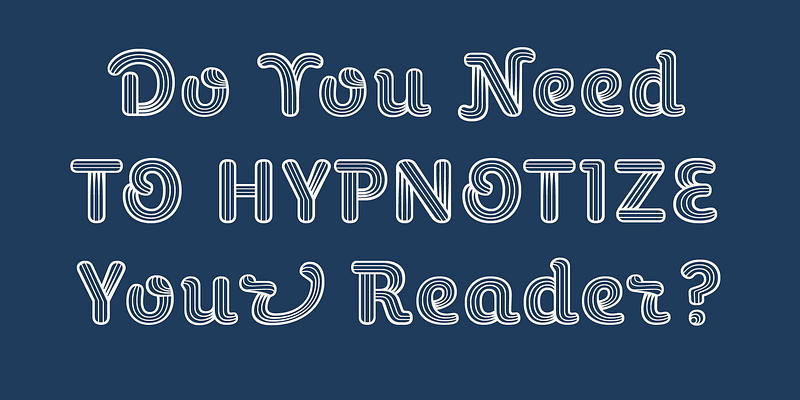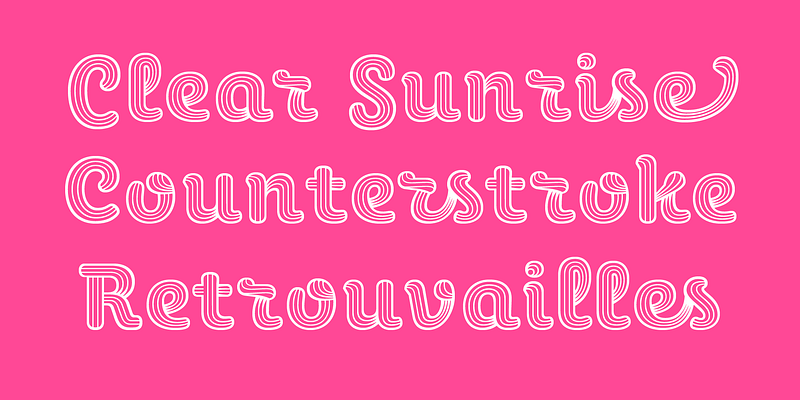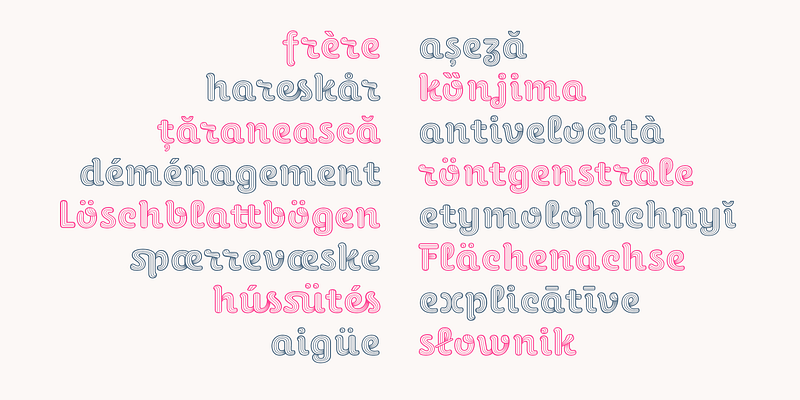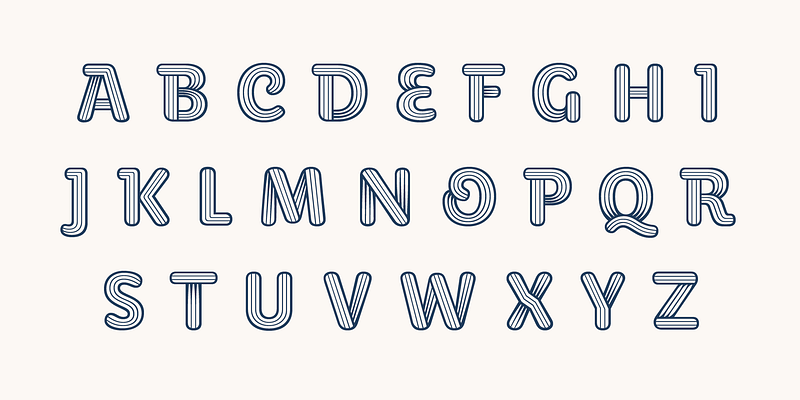
Perec Scripte Deco is a captivating font, ideal for unique designs, logos and headings. Part of the Perec Scripte family, the Deco version is engraved with three hand-drawn stripes which flow throughout the alphabet giving a subtle sense of volume and creating a unique word appeal. This font includes the expanded Latin char set with also alternates, two sets of figures, full monetaries, ligatures, swashes & more typographic goodies. With a serene air and a hint of nostalgia, Perec Scripte is a vertical script font with a delicate persuasive tone. The Perec Scripte family is part of the Perec superfamily, made as a tribute to the genius of Georges Perec, a singular writer of the 20th century. All Perec styles can be used together, judiciously, to achieve editorial pages rich in expression.